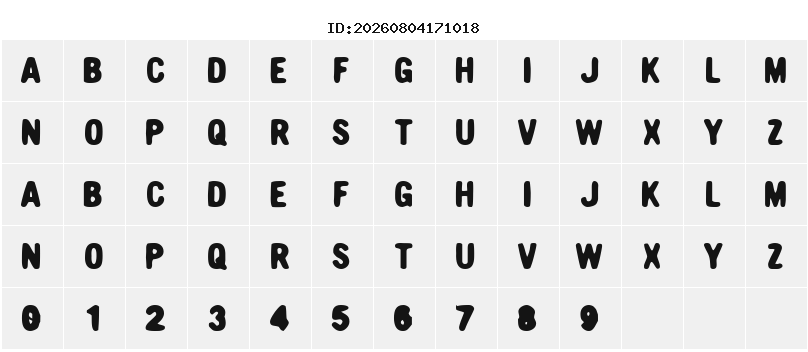
Nicotine Preview
• Font Name: Nicotine
• Full Font Name: Nicotine
• PostScript Name: Nicotine
About Nicotine.ttf
Nicotine.ttf is a modern, elegant sans-serif font designed for ultimate readability and visual harmony. Perfect for branding, headlines, web design, and print materials.